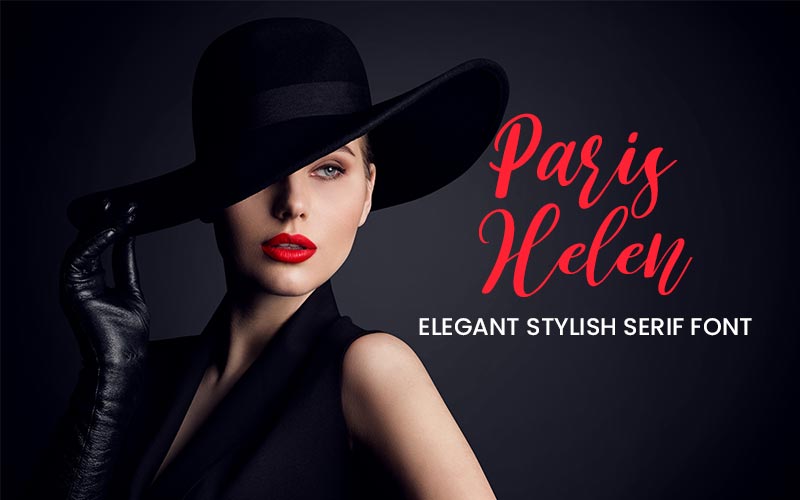
Paris Helen Elegant Script Font – Freebie
• Paris Helen Script Font Freebie
• Elegant, refined, timeless design
• Perfect for weddings & branding
• Works in modern & formal styles
• Sophisticated, versatile typeface choice
Paris Helen Elegant Script Font Freebie
Introducing the “Paris Helen Elegant Script Font Freebie”, a breathtaking typeface that exudes sophistication and elegance.
With its graceful curves, delicate strokes, and timeless appeal, this font is perfect for adding a touch of refinement to your design projects.
Whether you’re working on wedding invitations, luxury branding, or fashion editorials, Paris Helen’s flowing script and meticulously crafted letterforms will elevate your work to new levels of beauty.
Its versatility allows it to adapt to various design applications, from formal to modern styles.
Every detail has been meticulously designed, showcasing craftsmanship and artistry. The font’s classic yet contemporary style ensures its timelessness, making it a captivating choice that transcends trends.
Elegant script preview